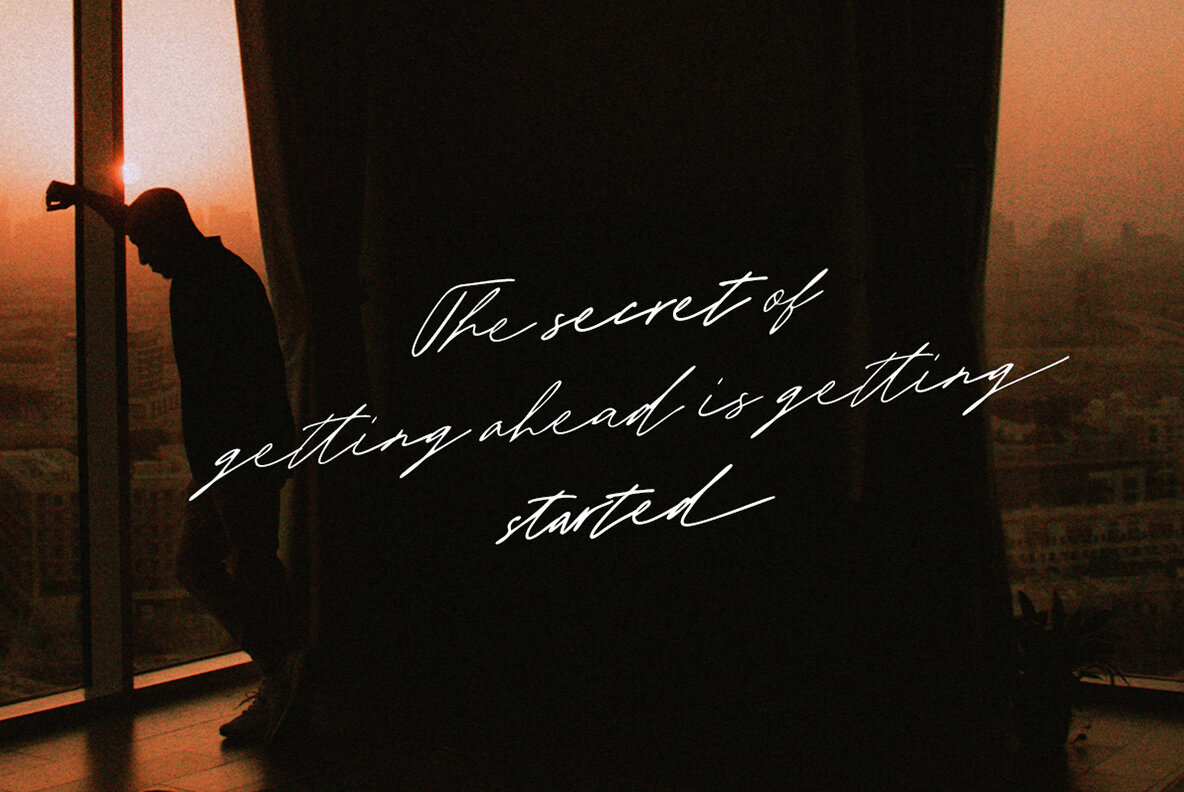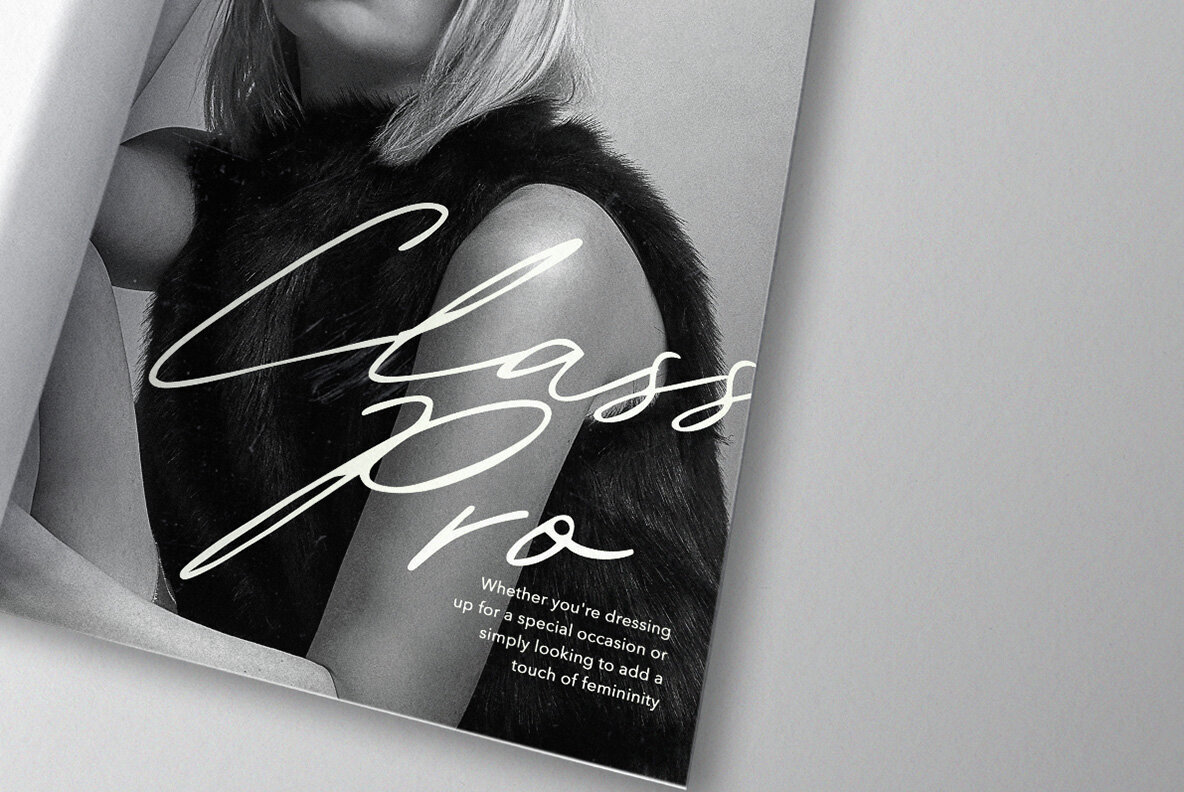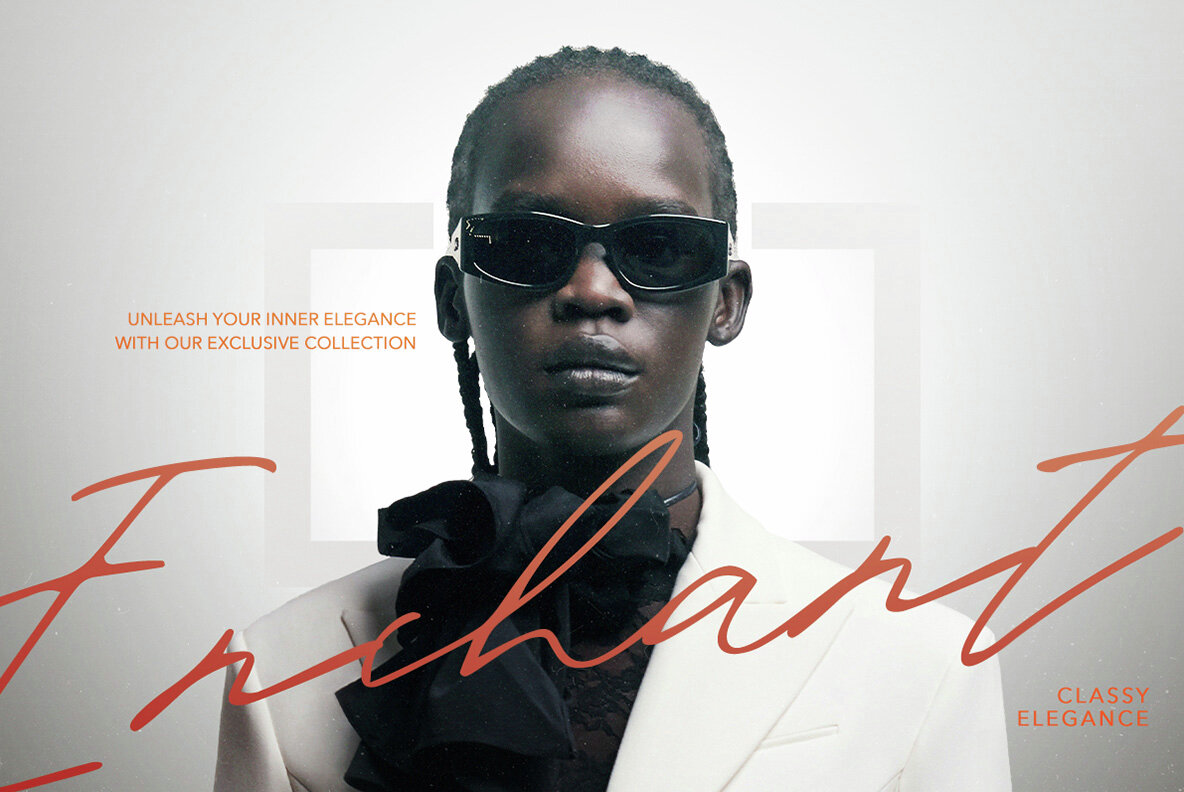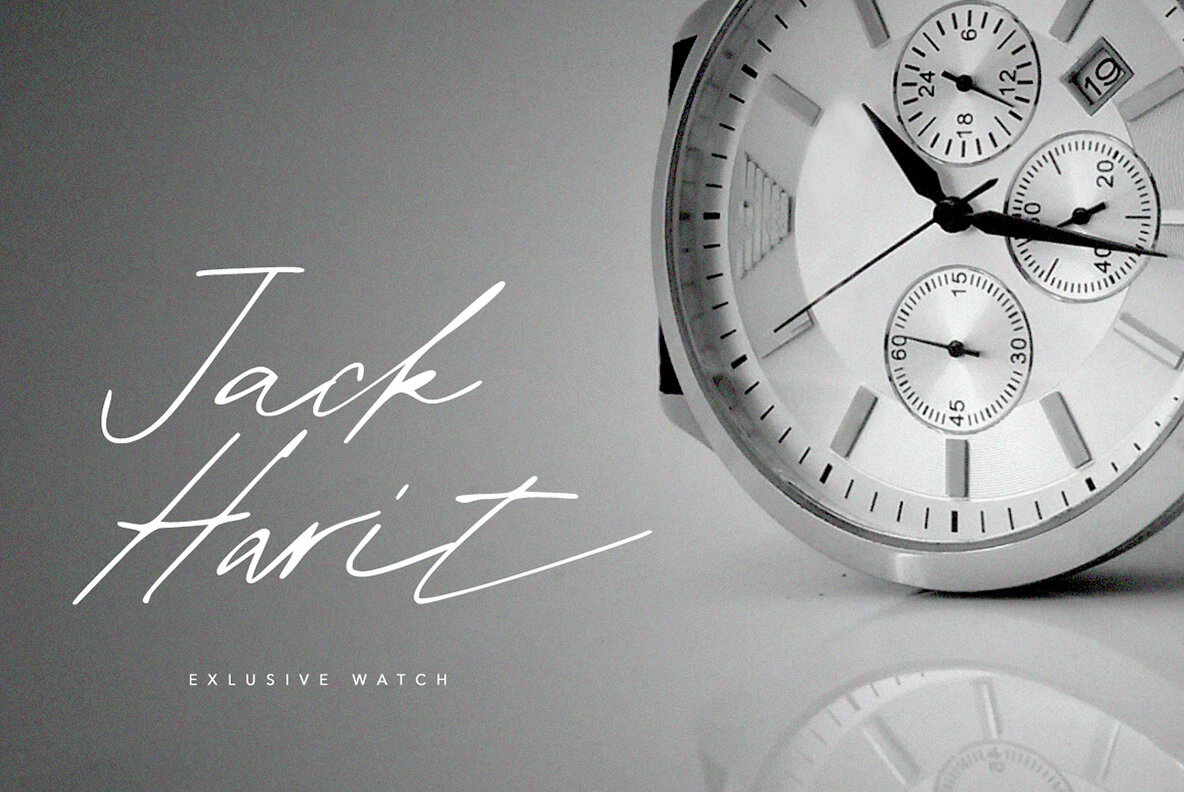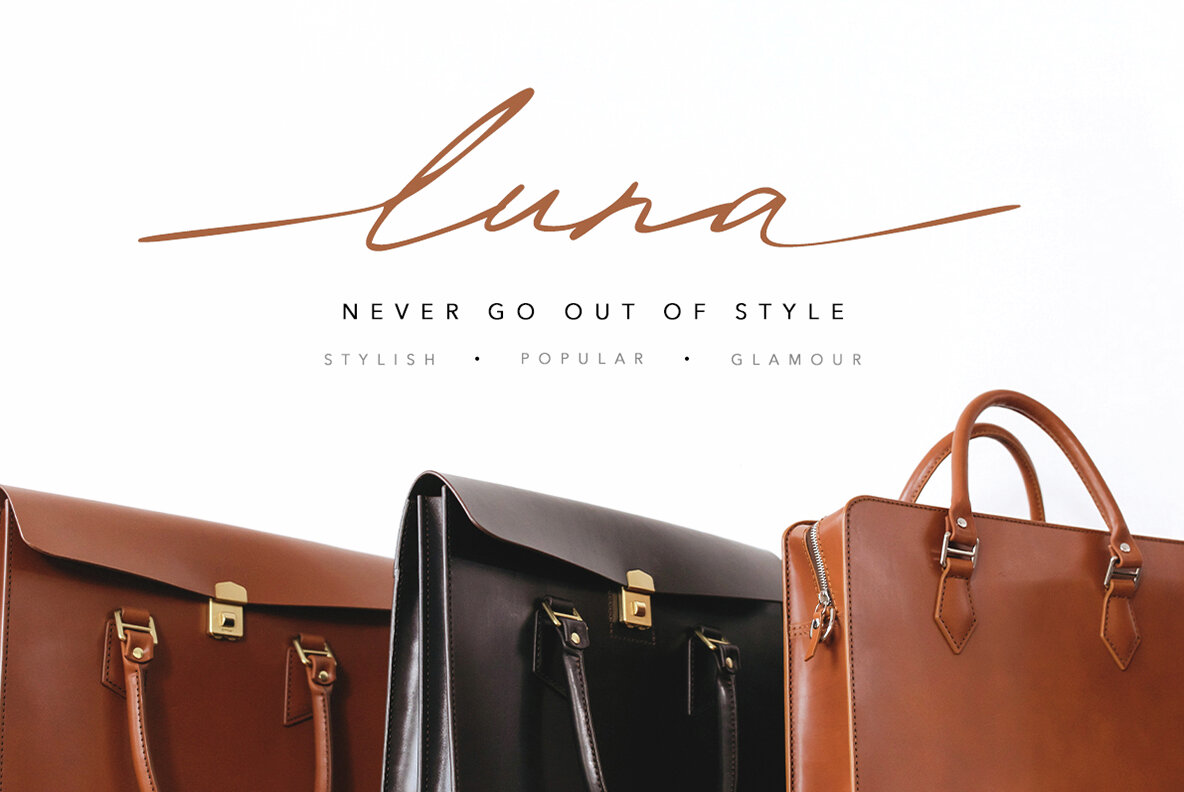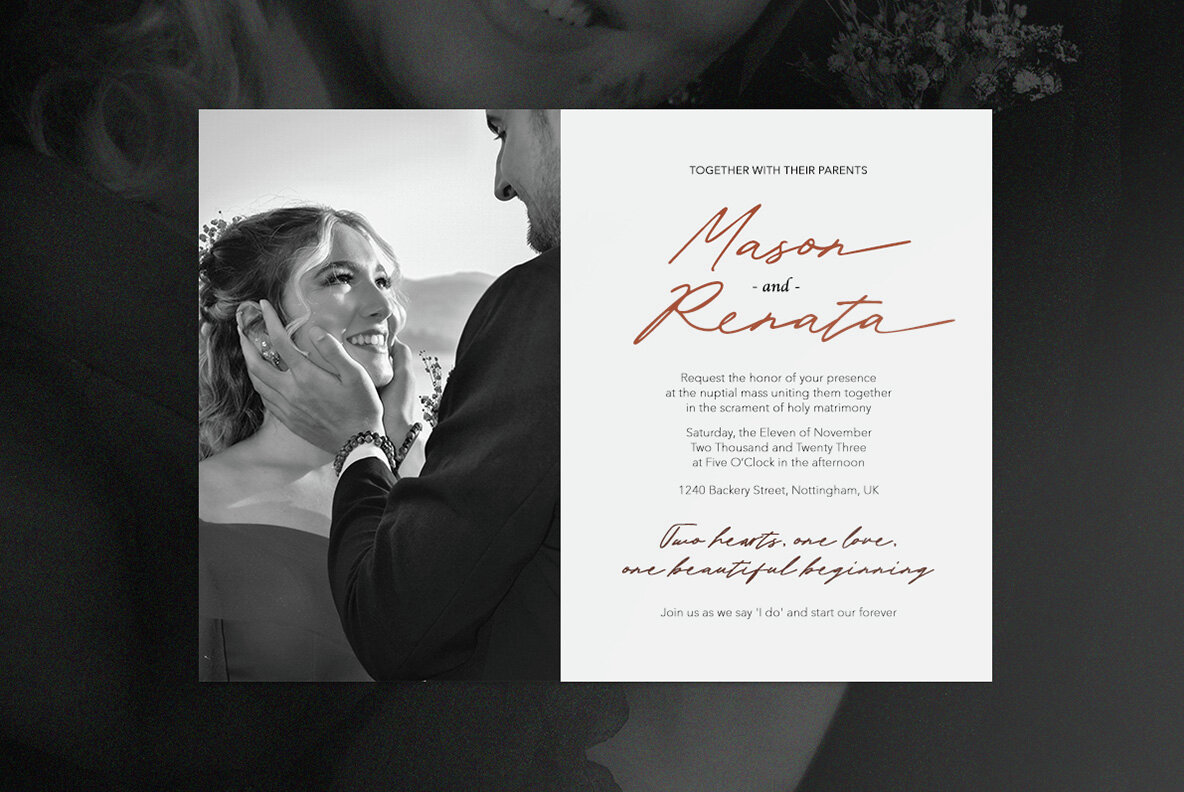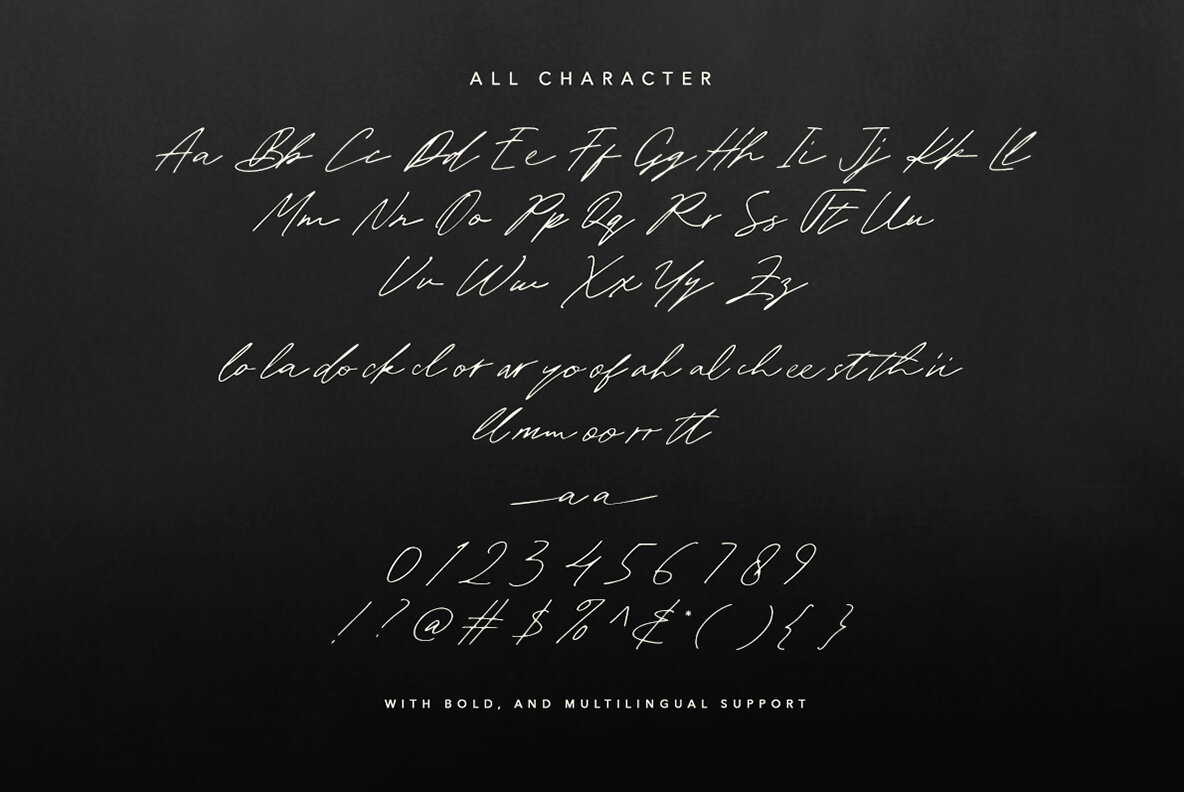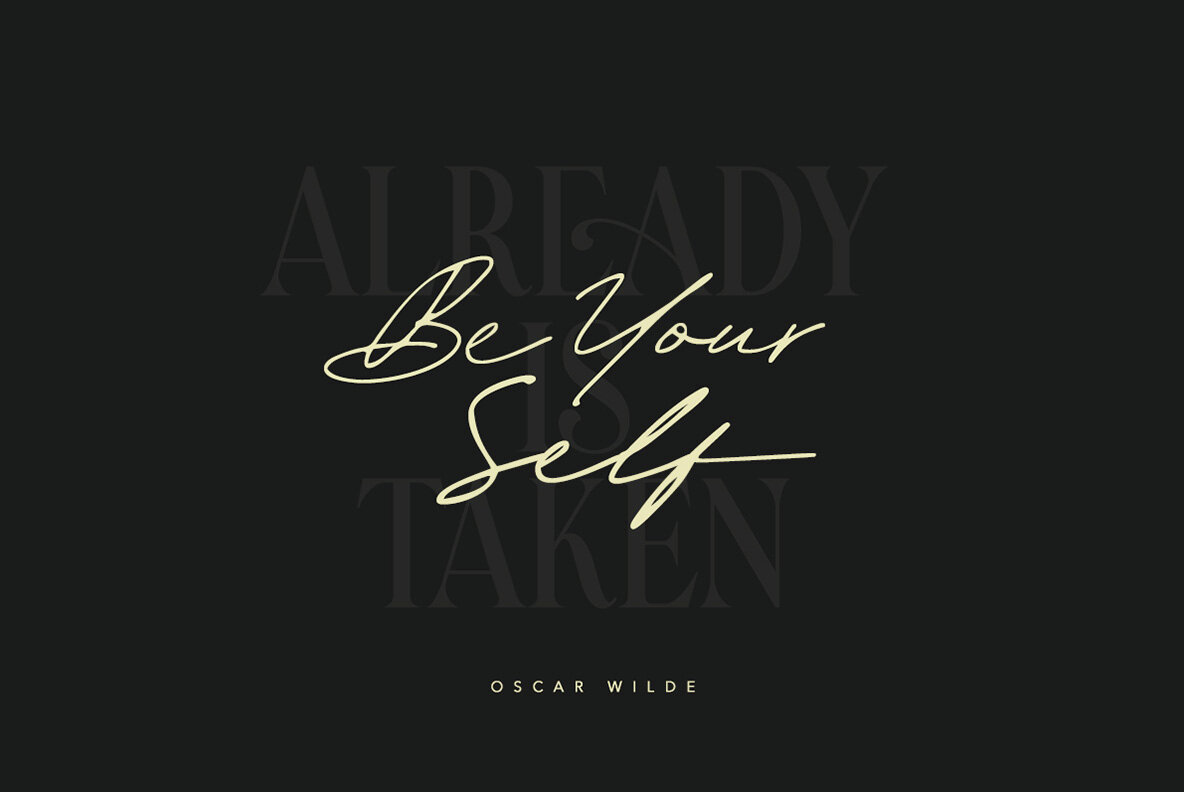
Right Sign Font
Right Sign Regular
Right Sign Bold
This elegant script font mimics a beautifully handwritten calligraphy, perfect for signature-style projects. Its flowing, cursive strokes evoke a modern yet timeless quality, ideal for use in wedding invitations, branding materials, personal stationery, and stylish greeting cards. This font brings a touch of sophistication and grace to any design project.